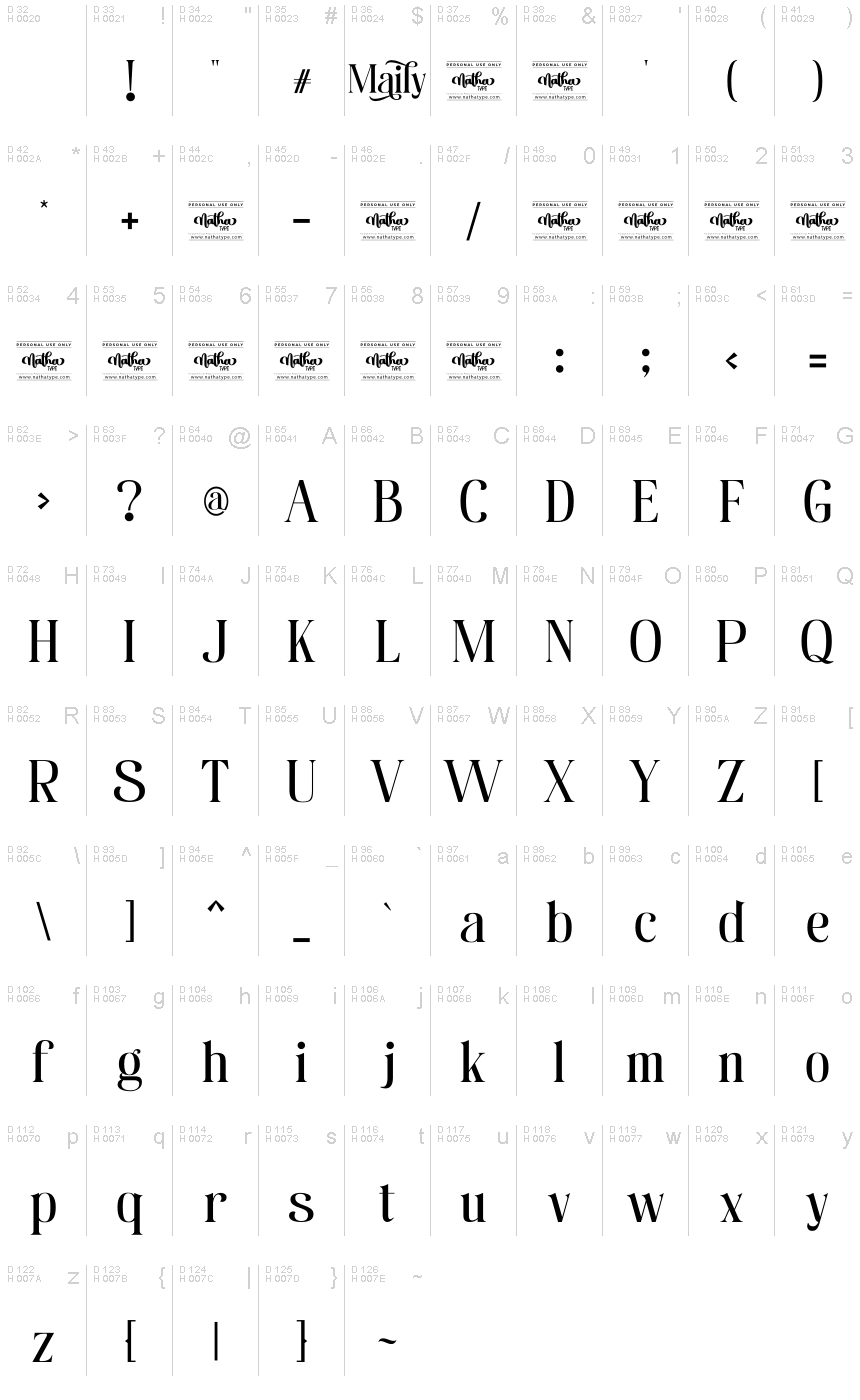
Maily Personal Use
Maily, designed by Nathatype, captivates with its elegant serif design that balances sophistication and warmth. Its medium weight adds a sturdy presence while maintaining a graceful flow, making it both approachable and refined. The unique curves and artful flourishes evoke a sense of classic charm, inviting readers to linger on each letter.
Visually striking yet versatile, Maily works beautifully in elegant invitations or sophisticated branding projects. Whether used in editorial layouts or digital platforms, it effortlessly enhances the aesthetic appeal without overwhelming the overall design. This font’s distinct personality shines through in any application where elegance meets modernity, making it an ideal choice for those seeking to make a lasting impression.